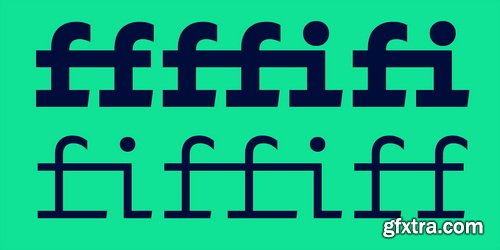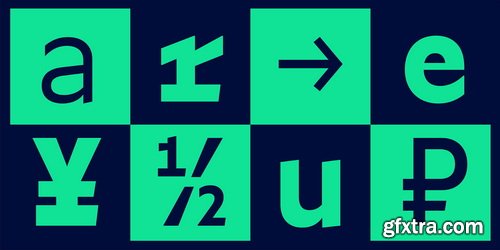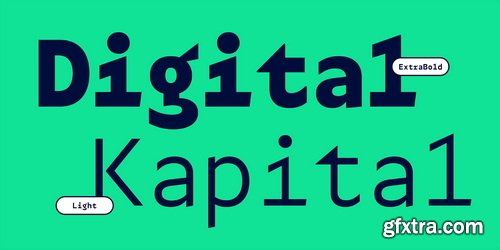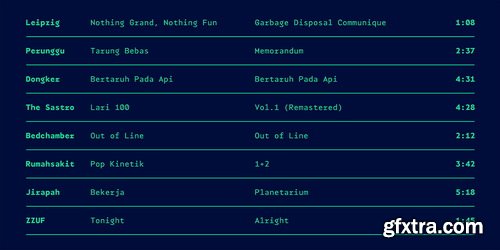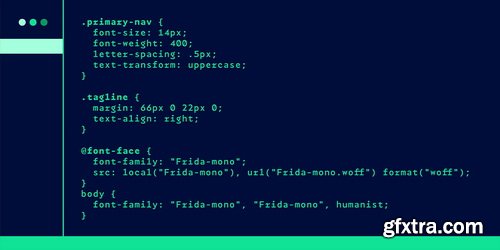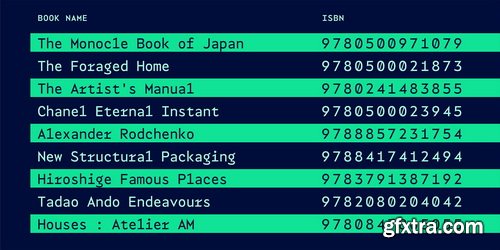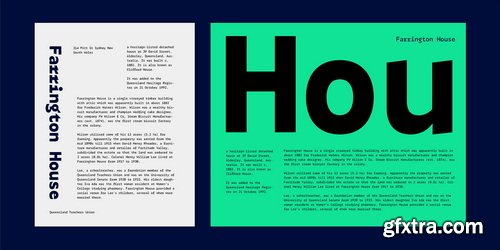
TG Frida Mono introduces a cutting-edge digital monospaced font, seamlessly blending geometric design and humanist-style details. Carefully crafted with meticulous attention to detail, this font offers six weights, ranging from light to extrabold, to meet diverse typographic needs. The inclusion of alternate characters enhances design possibilities, providing variations that elevate visual interest and creative expression. Ideal for designs demanding precision and regularity, TG Frida Mono is a versatile choice for your creative projects